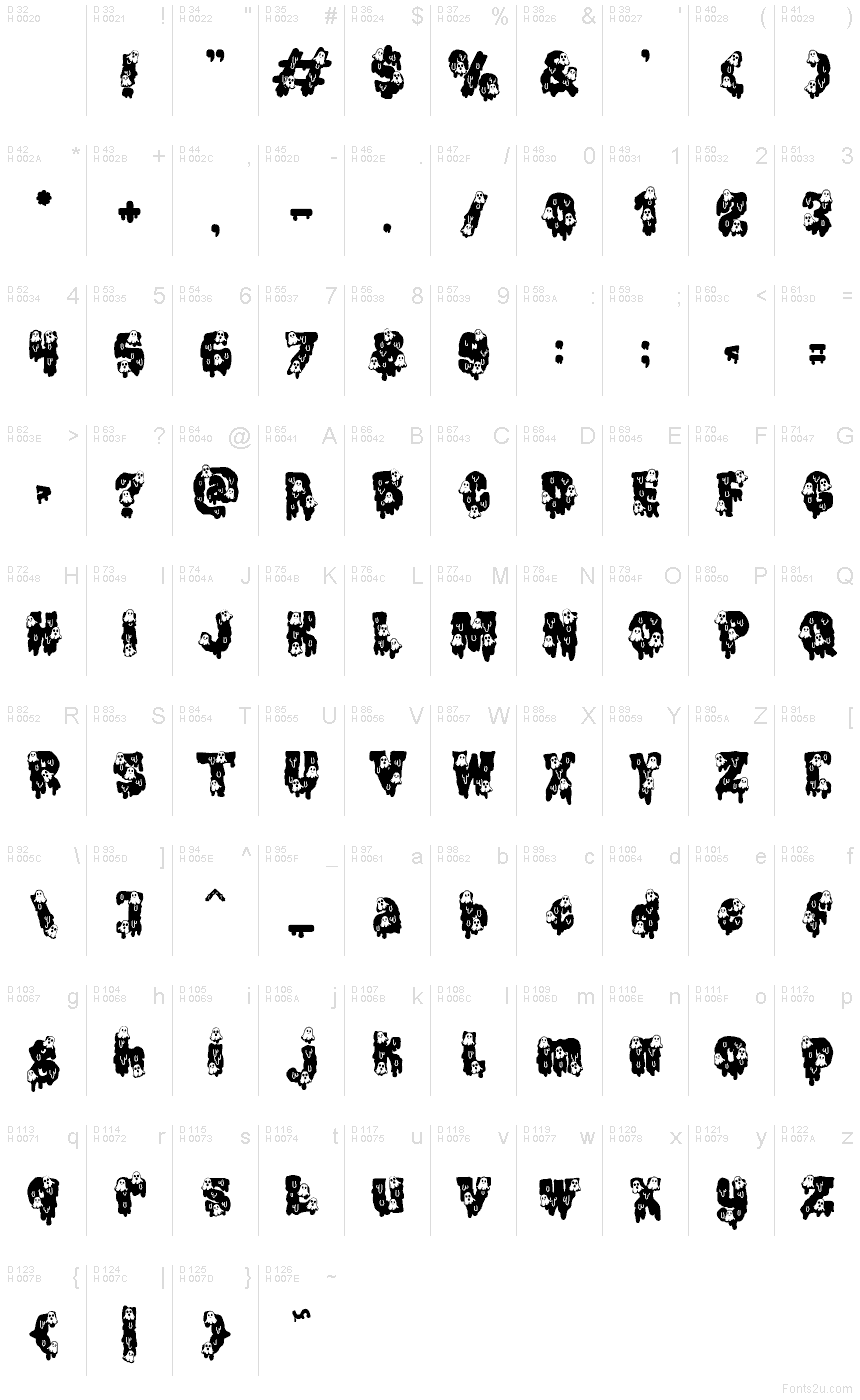
Gothic Haunt Ghost font by PutraCetol Studio is a free Halloween decorative display font. Built within the Gothic Haunt family, its letters are packed with cheeky little specters, inky black shapes, and gooey edges that read bold from a distance. The high-contrast black-and-white makes each character pop like a flashlight beam in a foggy yard-playful, spooky, and unmistakable.
Using Gothic Haunt Ghost, headlines snap to attention on trick-or-treat posters, haunted house flyers, party invites, social posts, stickers, and seasonal merch. This free font shines at larger sizes with a touch of extra letter spacing to keep the ghosts breathing. Pair it with a clean, neutral sans for body copy so the haunt gets top billing.